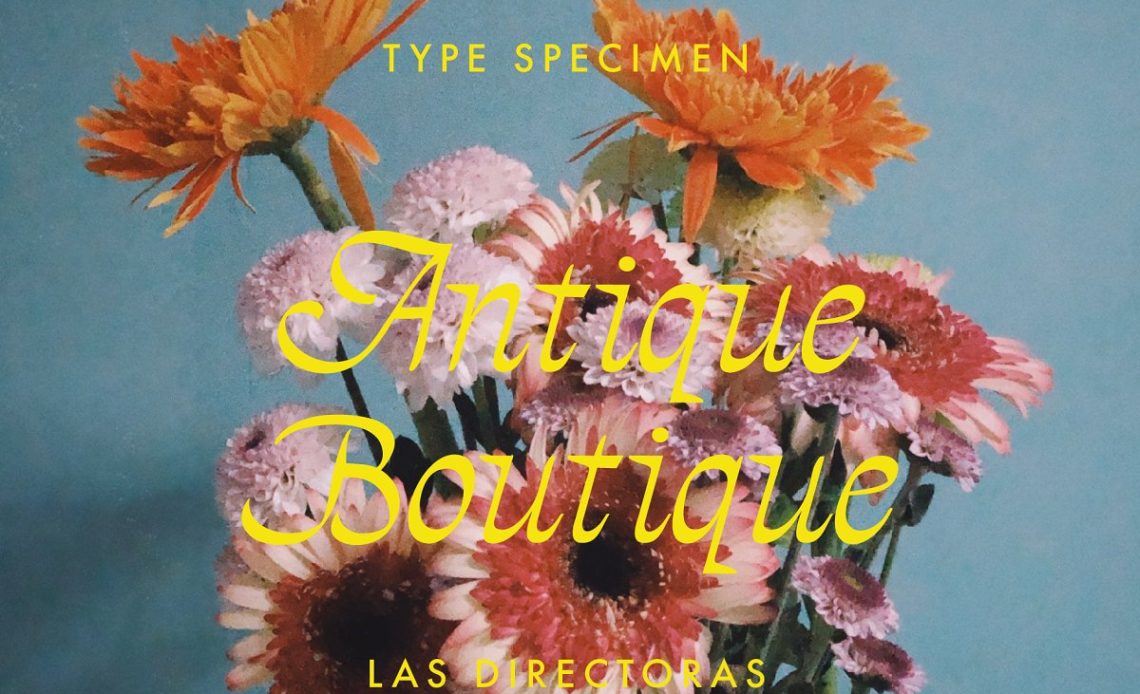
Introducing The Directors Italic Typeface, an ornate script font designed by New Tropical Design Studio. If you're a fan of Wes Anderson's iconic typography, then this is the perfect font for you. It's a unique mix of retro 60s-70s curves and older style calligraphy that creates a memorable typeface with a romantic flair.
This font is not only beautiful, but it's also versatile, making it suitable for a wide range of projects. From analogue photography to pastel color palettes, The Directors Italic Typeface will add a touch of nostalgia to any design.
The Directors Italic Typeface comes with a full set of uppercase and lowercase letters, numbers, and punctuation, making it perfect for logos, headlines, and body copy. It also offers multilingual support, including polish.